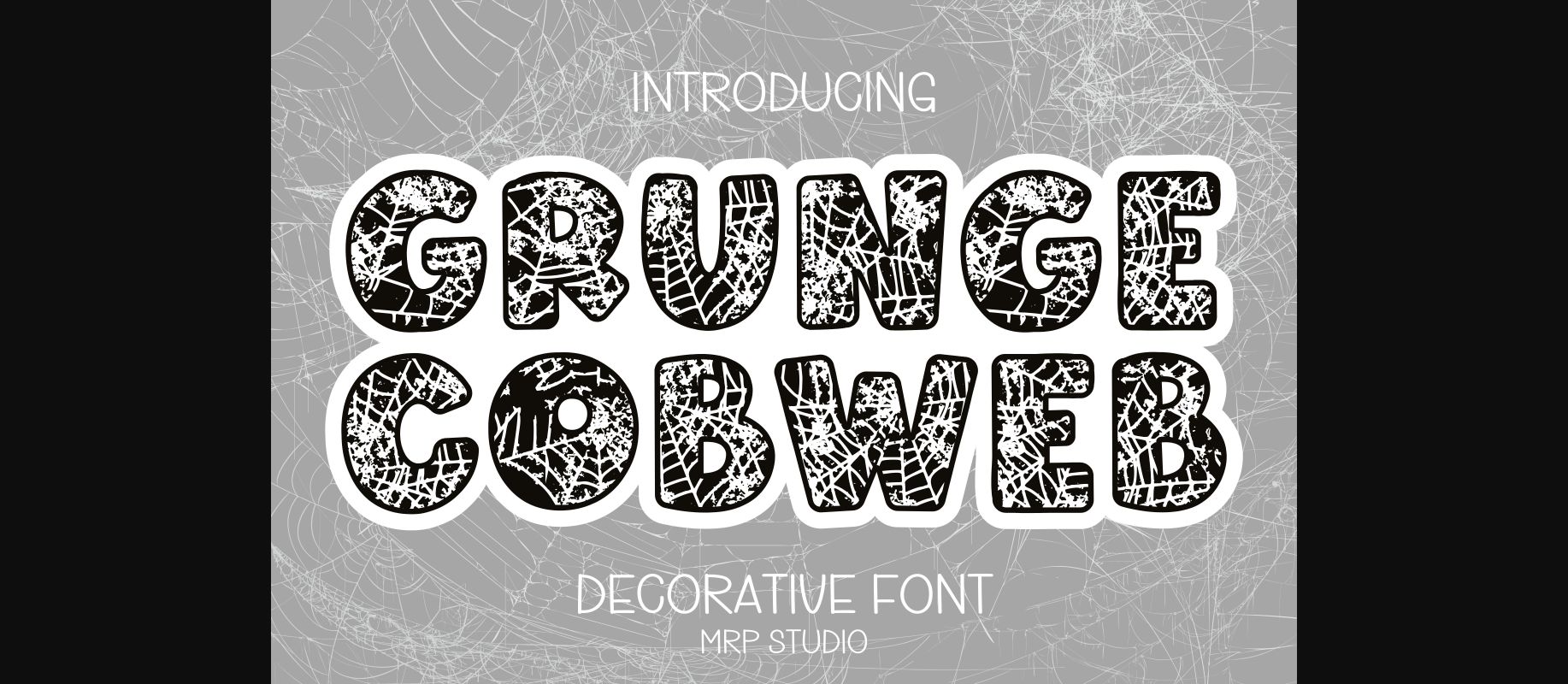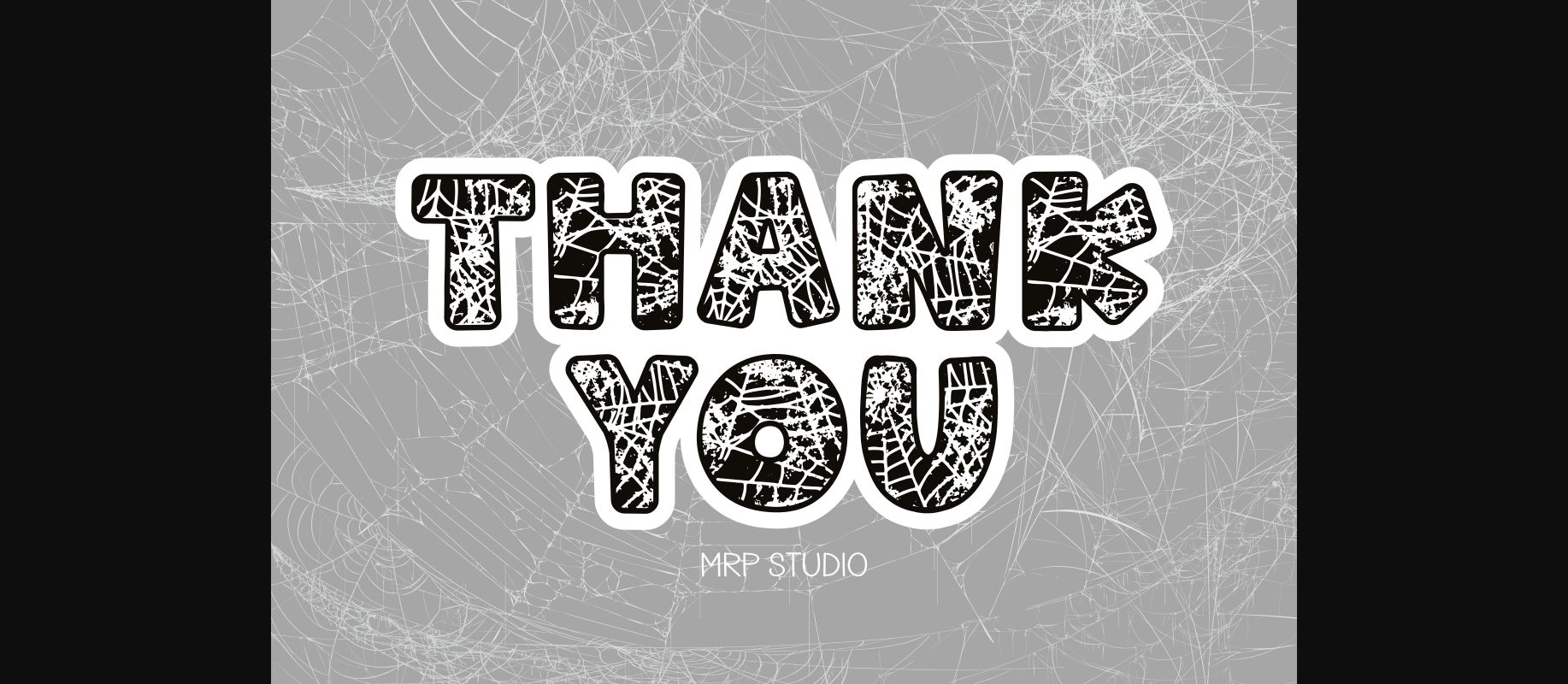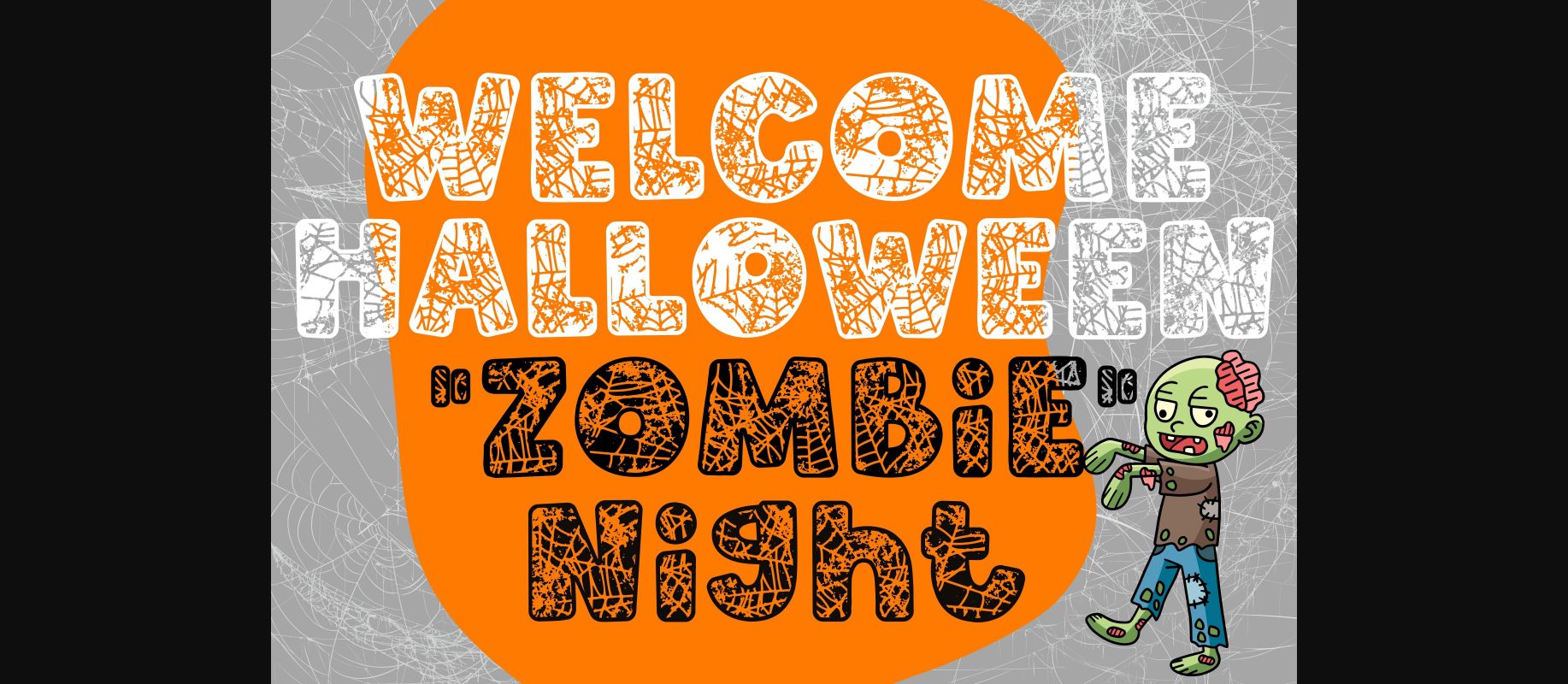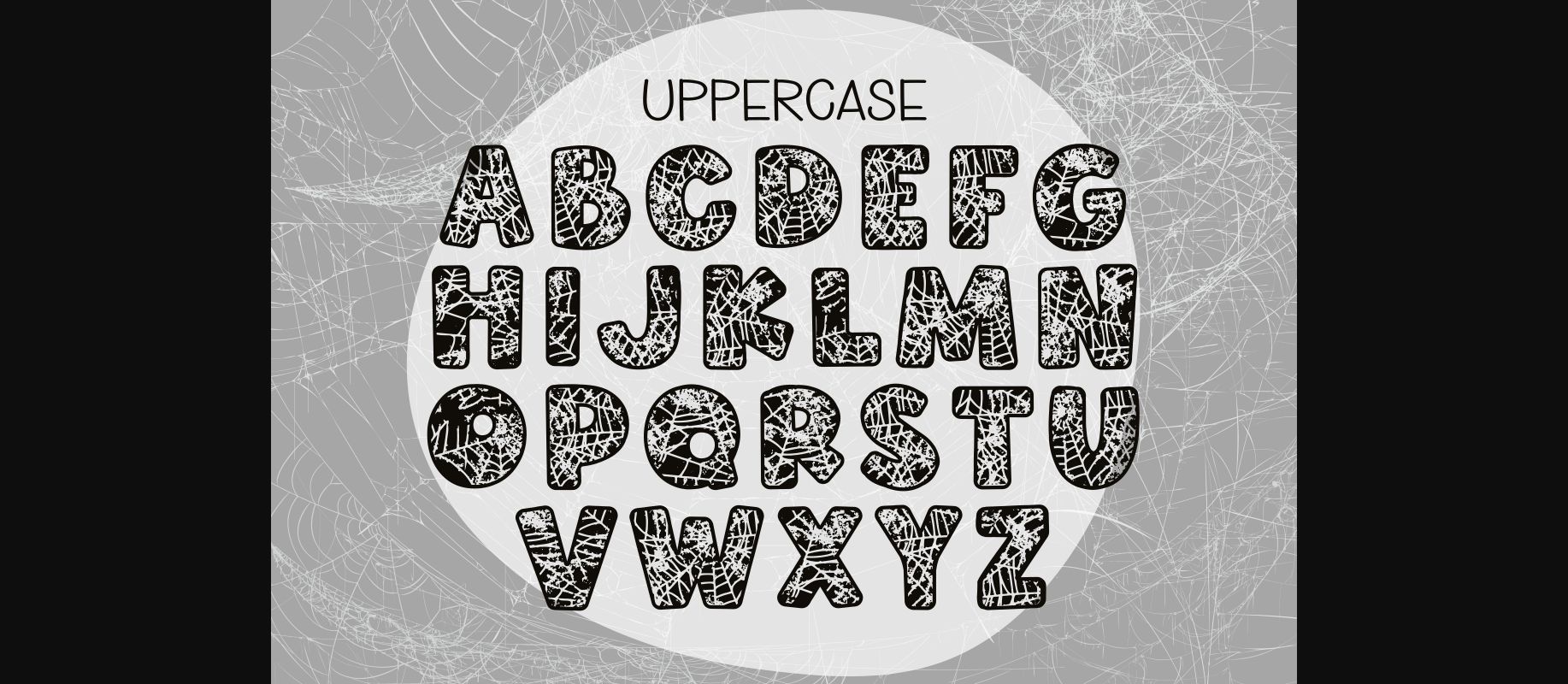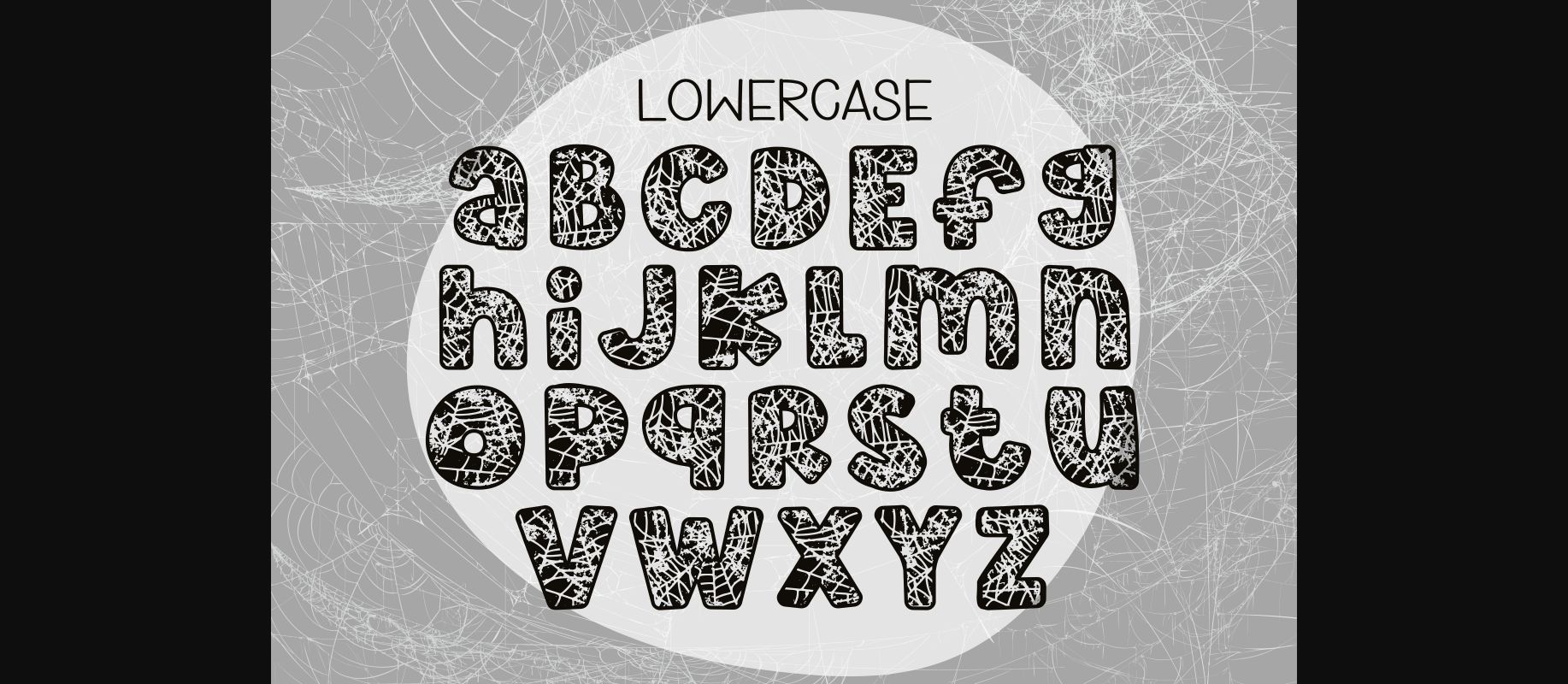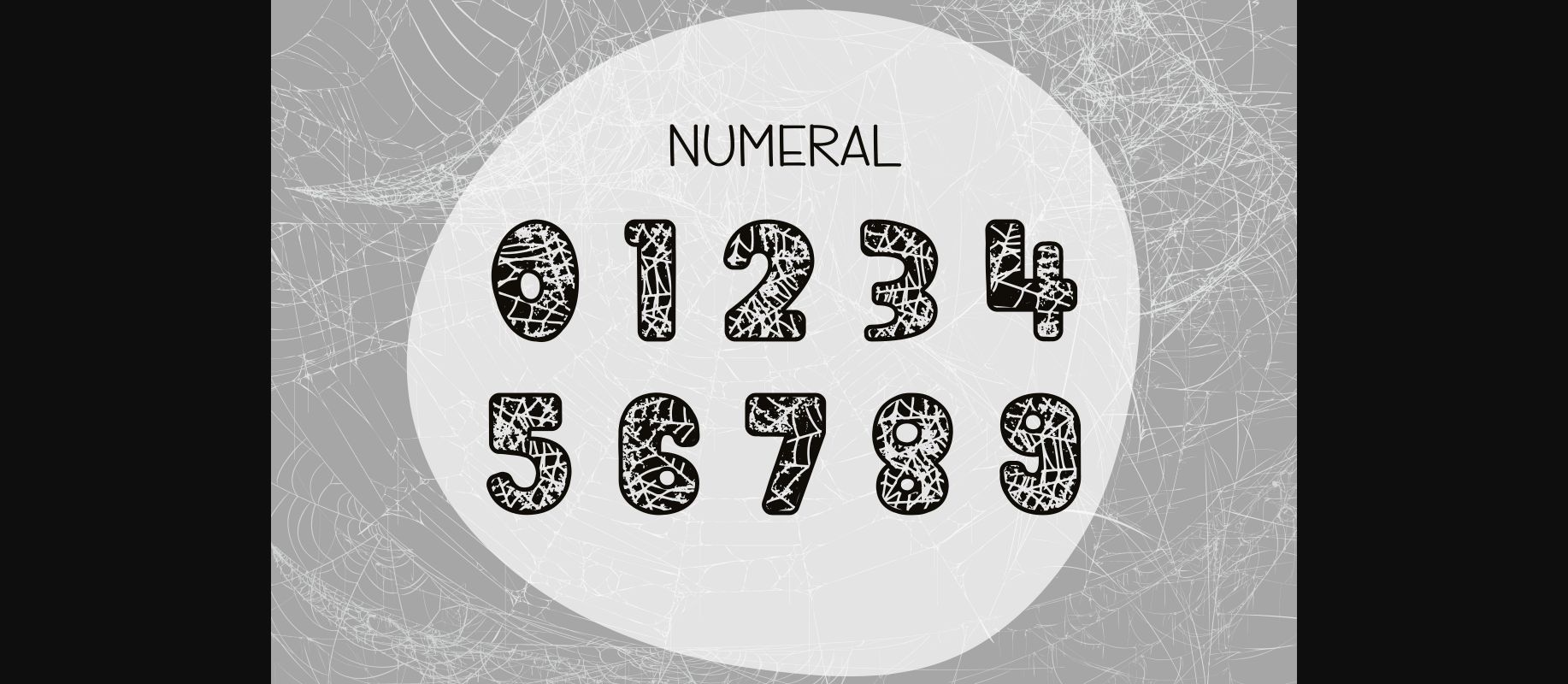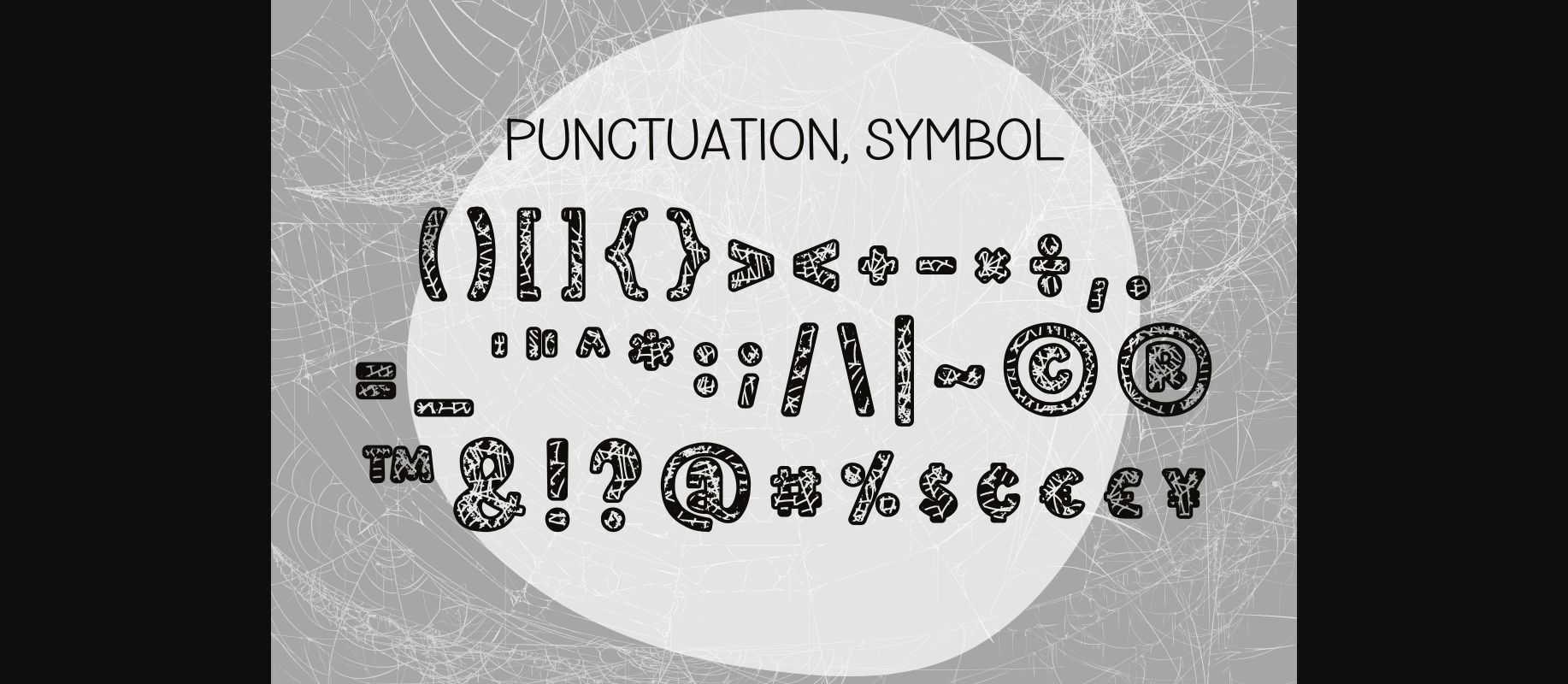
Grunge Cobweb Font
About Grunge Cobweb Font
Grunge Cobweb is designed in a spooky and adorable decorative font style. It would be an awesome addition to your lovely projects and also your child-related project such as back to school, Halloween party decorations and much more.